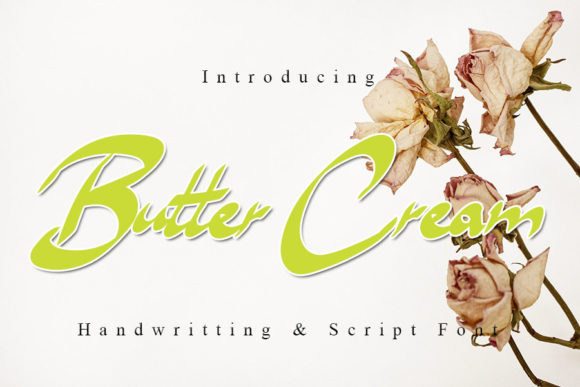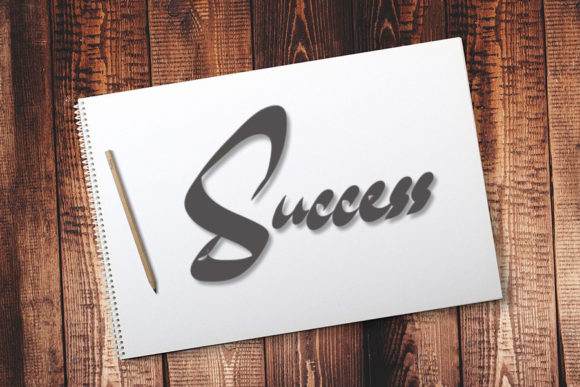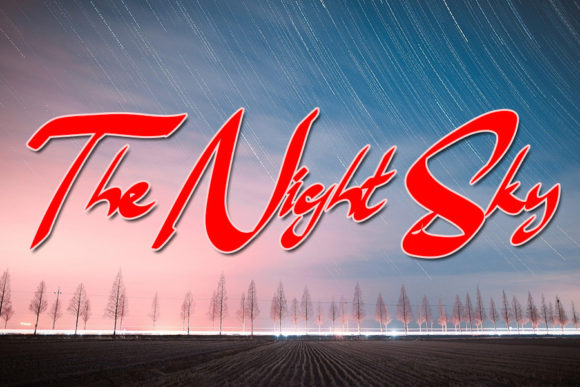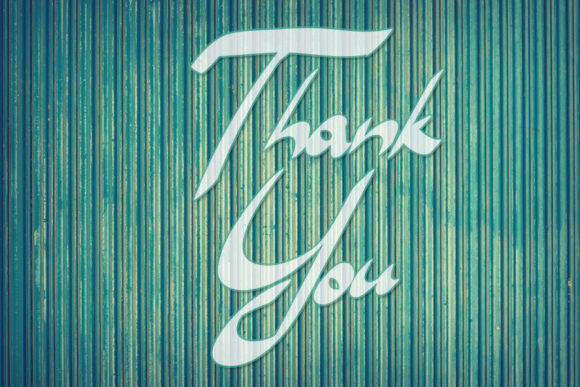
Butter Cream Font
About Butter Cream Font
Butter Cream is a whimsical script font with a relaxed theme, featuring a lovely style. No matter the topic, this font will be an incredibly asset to your fonts’ library, as it has the potential to elevate any creation.